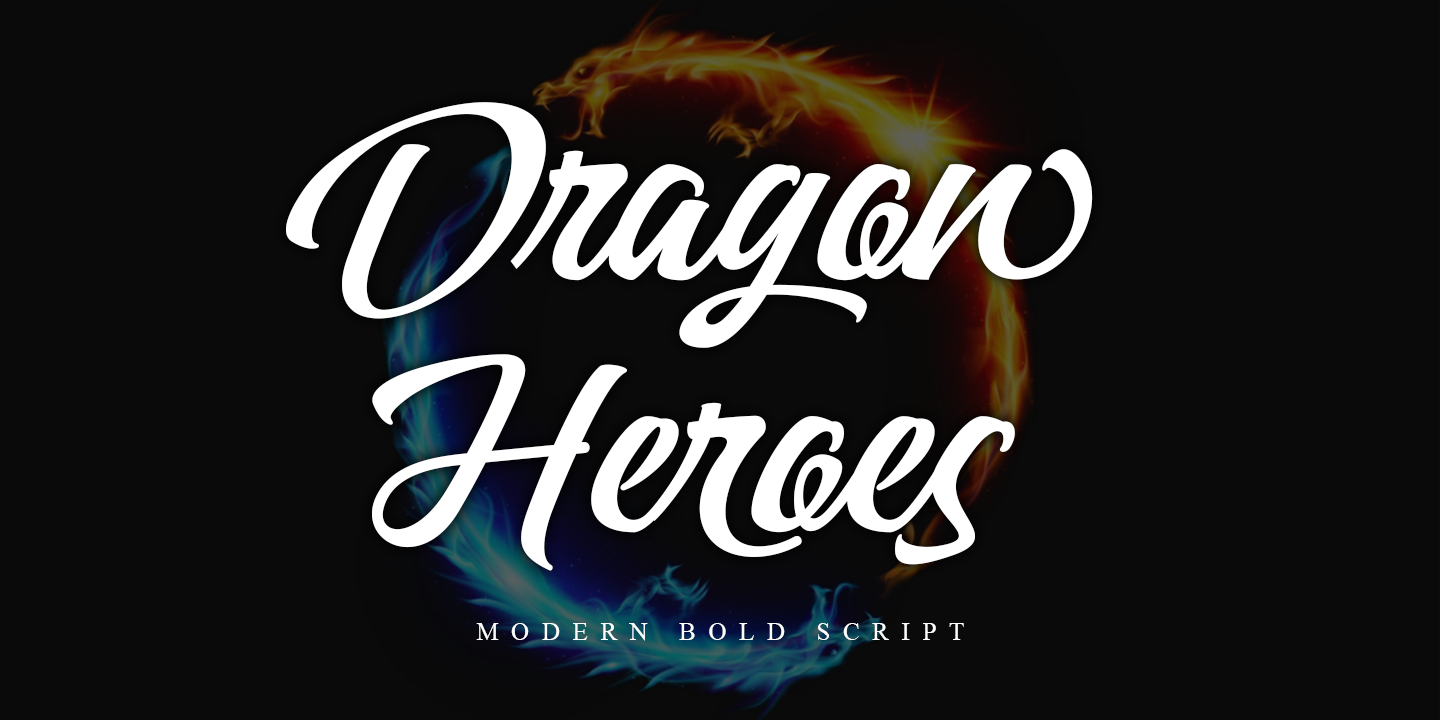
Dragon Heroes Font Free Download
Looking for a bold, dynamic typeface that brings power and adventure to your designs? Dragon Heroes Font Free Download is the perfect choice! This striking font features sharp edges, heroic styling, and an energetic vibe—ideal for gaming logos, action-packed posters, comic books, and sports branding. Its strong presence ensures your designs stand out with intensity and excitement.
Why Choose Dragon Heroes Font?
With its fierce, fantasy-inspired design, Dragon Heroes Font Free Download adds a dramatic touch to any project. Whether you're creating a video game title, an esports logo, or a movie poster, this font delivers an epic, warrior-like aesthetic. Its bold lettering ensures maximum readability while maintaining a unique, handcrafted feel.
Best Uses for Dragon Heroes Font
Gaming & Esports – Perfect for team logos, streaming overlays, and in-game text.
Comic Books & Manga – Enhances titles, covers, and speech bubbles with a heroic edge.
Posters & Merchandise – Makes headlines pop on apparel, stickers, and promotional materials.